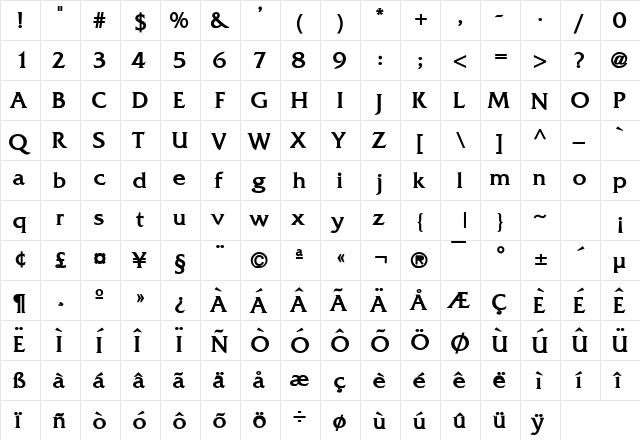
Franco Bold
Design Context for Franco Typeface
Franco takes a measured approach to typography — its balanced proportions and neutral character make it a reliable workhorse for both digital and print work. The heavy weight commands attention and anchors typographic hierarchies.